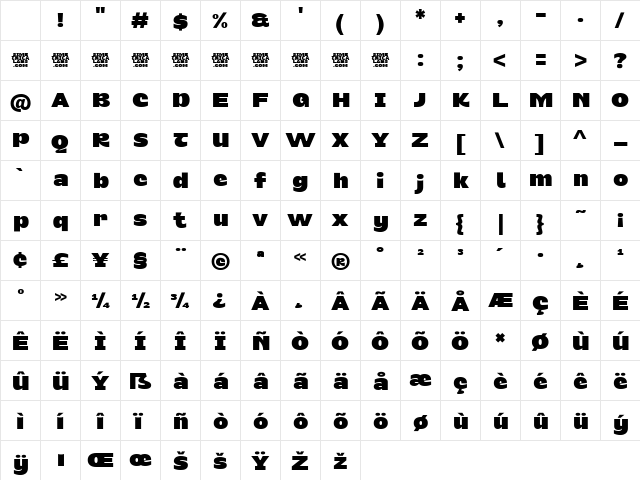
Complete Rostacio DEMO Regular glyph index. Displaying only characters natively supported by Rostacio DEMO Regular font.
Rostacio DEMO is a composed and adaptable typeface that performs quietly and consistently across a wide range of design contexts.